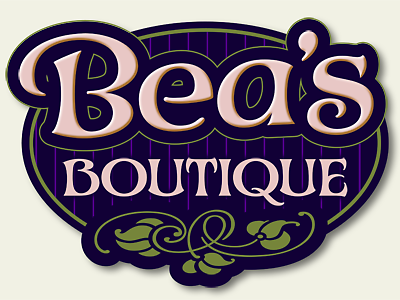
LHF Mystery Font
LHF Mystery Font by Dave Correll is part Art Nouveau, part Fantasy. Set includes 2 fonts with 12 alternate characters and 13 bonus automatic ligatures. You'll find many uses for this highly unusual and creative font.